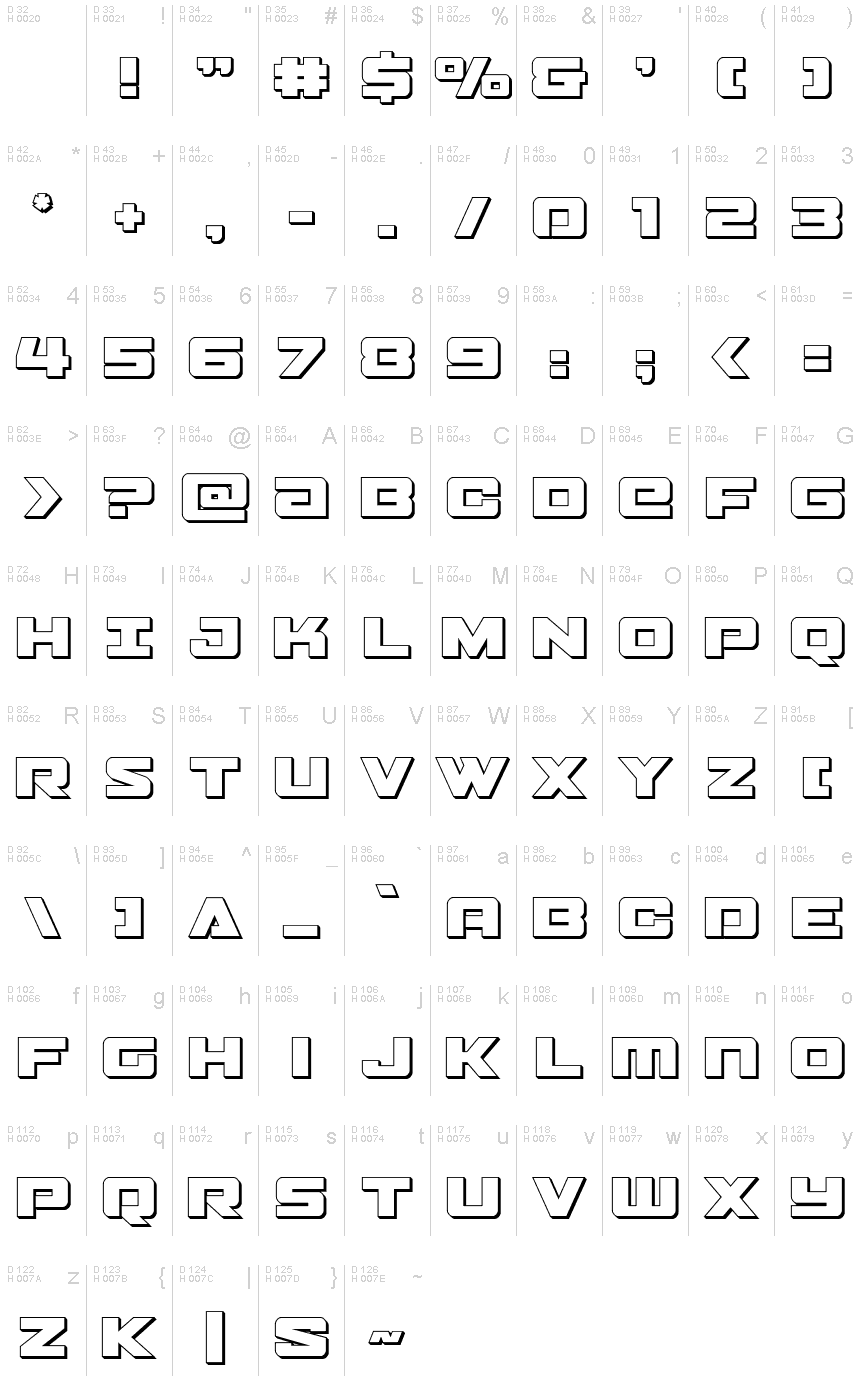
Power Broker 3D
Power Broker 3D, a striking member of the Power Broker font family, stands out as an embodiment of strength and modernity. Designed by Iconian Fonts, this typeface commands attention with its extra-bold weight and extra-expanded width that enhance its presence on any canvas. The 3D futuristic style of Power Broker 3D adds depth and dimension to the characters, making them leap off the page or screen.
The font's pronounced angles and clean lines exude confidence and are indicative of its display type classification-perfect for grabbing eyes in logos, headlines, posters, or any project requiring a robust visual impact. The aesthetic appeal of Power Broker 3D lies in its ability to balance futuristic vibes with readability; it's assertive without being overwhelming.
Whether you're looking to inject a sense of authority into your designs or aiming for an avant-garde flair, Power Broker 3D is your ally in creating visuals that are not only contemporary but also memorable. Its potential is vast across various creative landscapes where making a bold statement is key.
The font's pronounced angles and clean lines exude confidence and are indicative of its display type classification-perfect for grabbing eyes in logos, headlines, posters, or any project requiring a robust visual impact. The aesthetic appeal of Power Broker 3D lies in its ability to balance futuristic vibes with readability; it's assertive without being overwhelming.
Whether you're looking to inject a sense of authority into your designs or aiming for an avant-garde flair, Power Broker 3D is your ally in creating visuals that are not only contemporary but also memorable. Its potential is vast across various creative landscapes where making a bold statement is key.